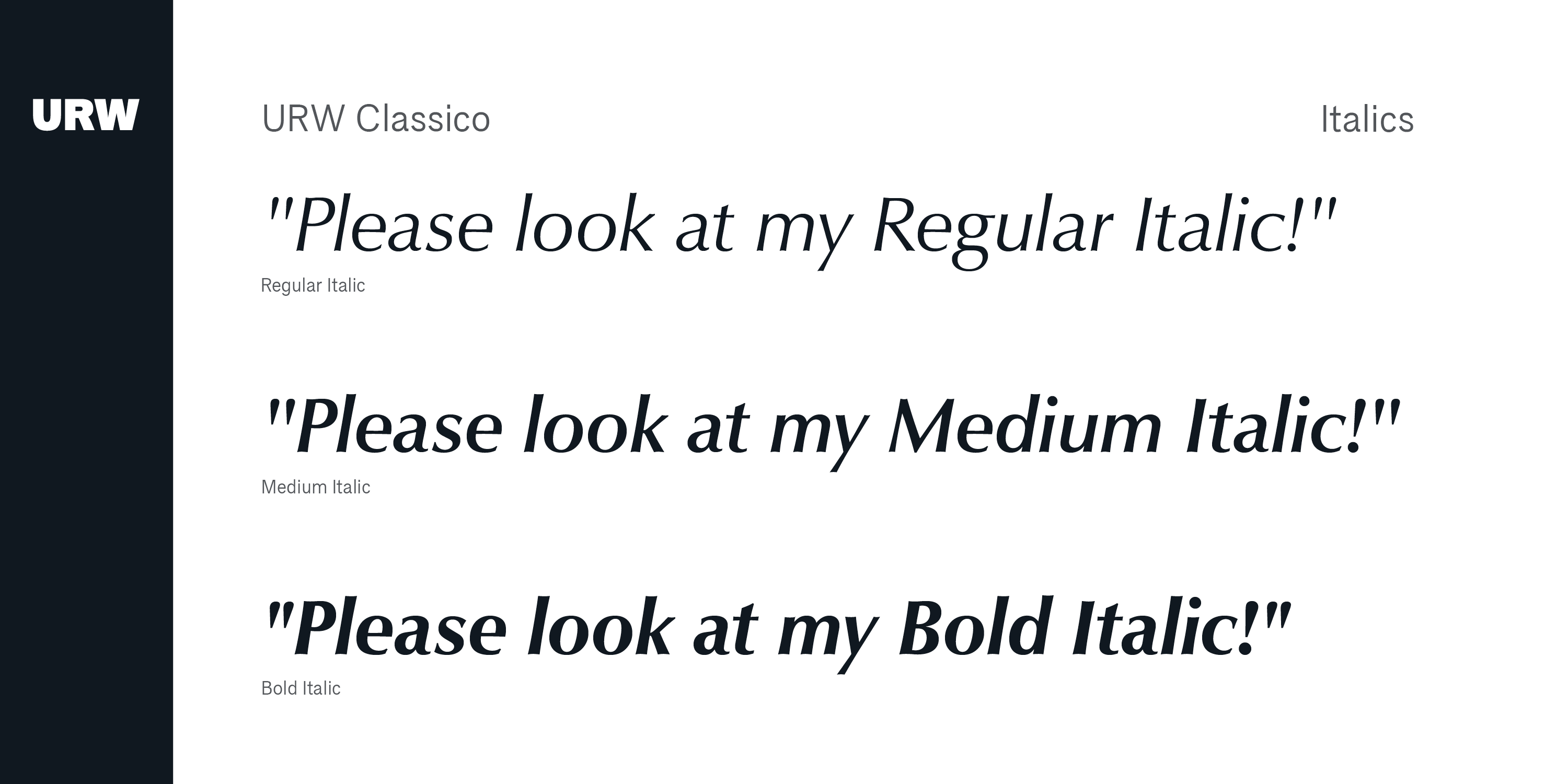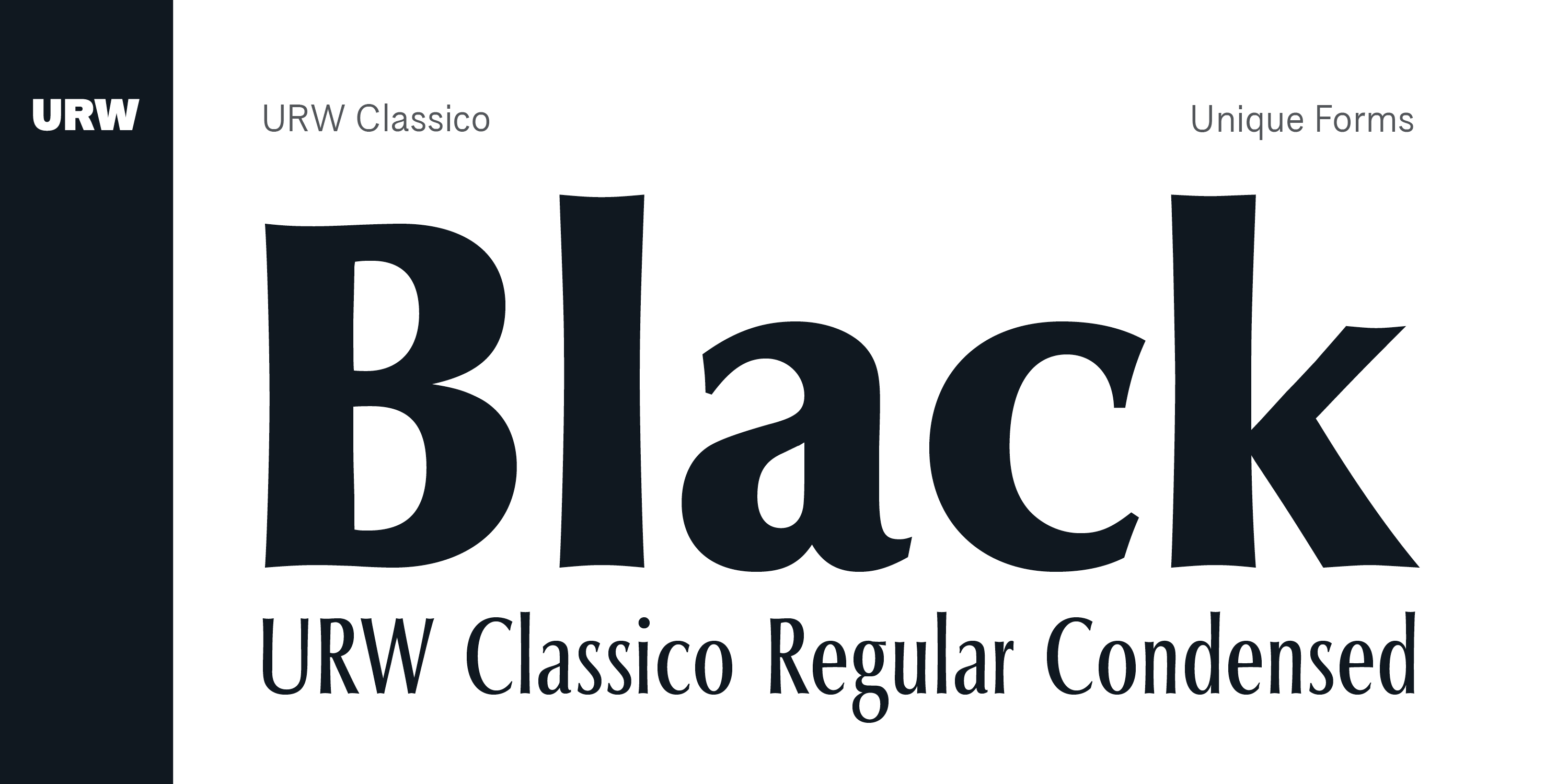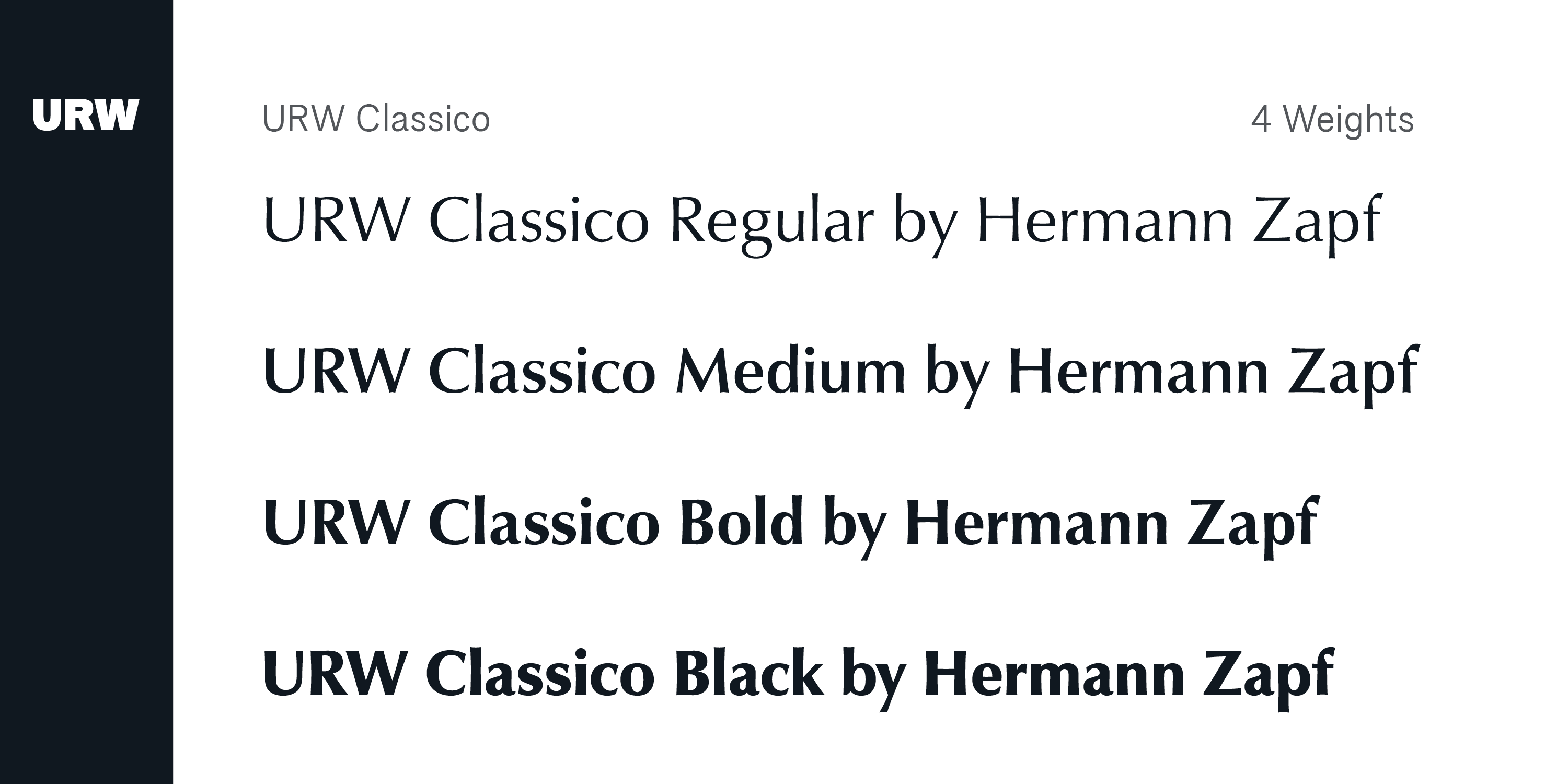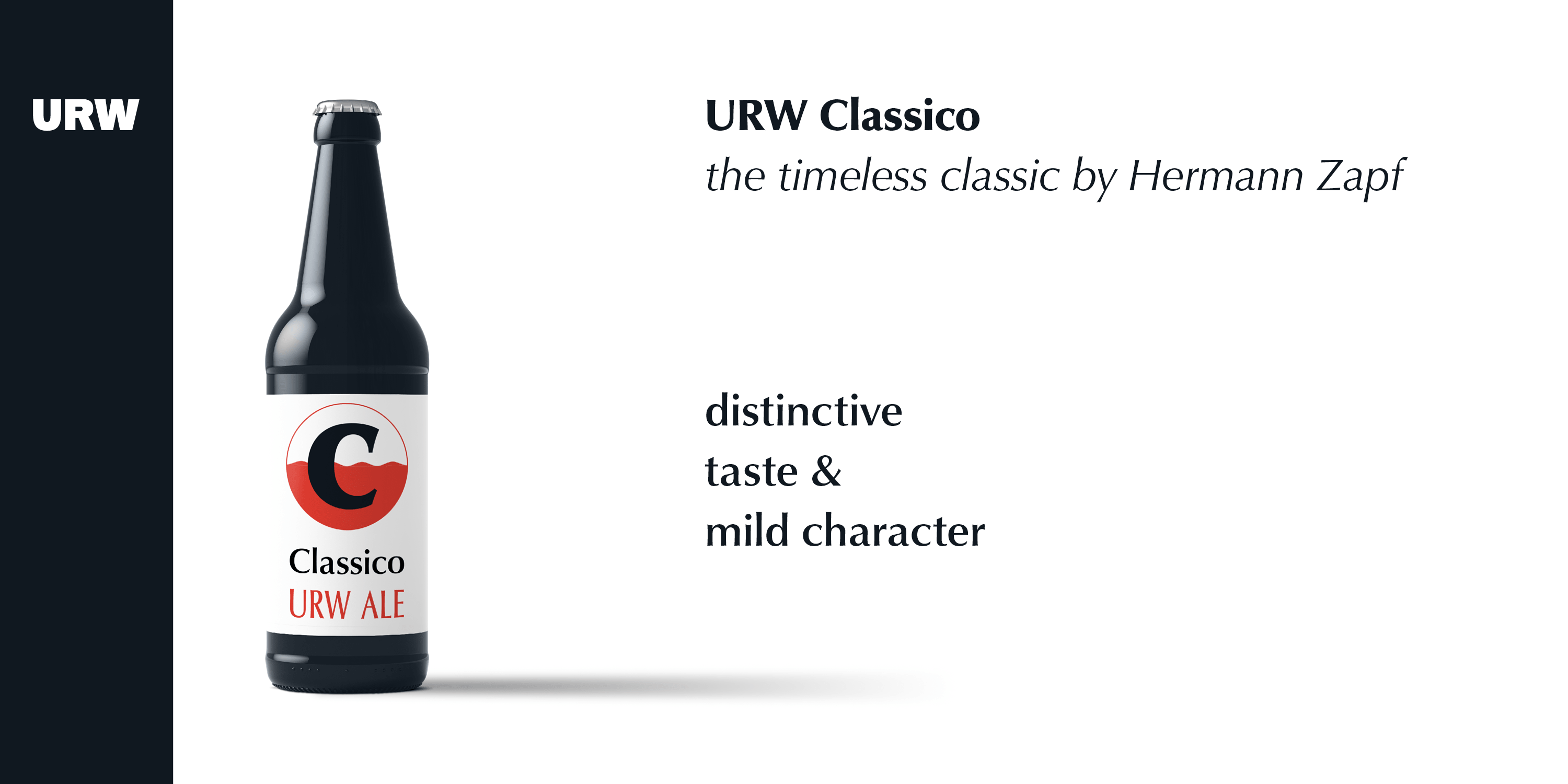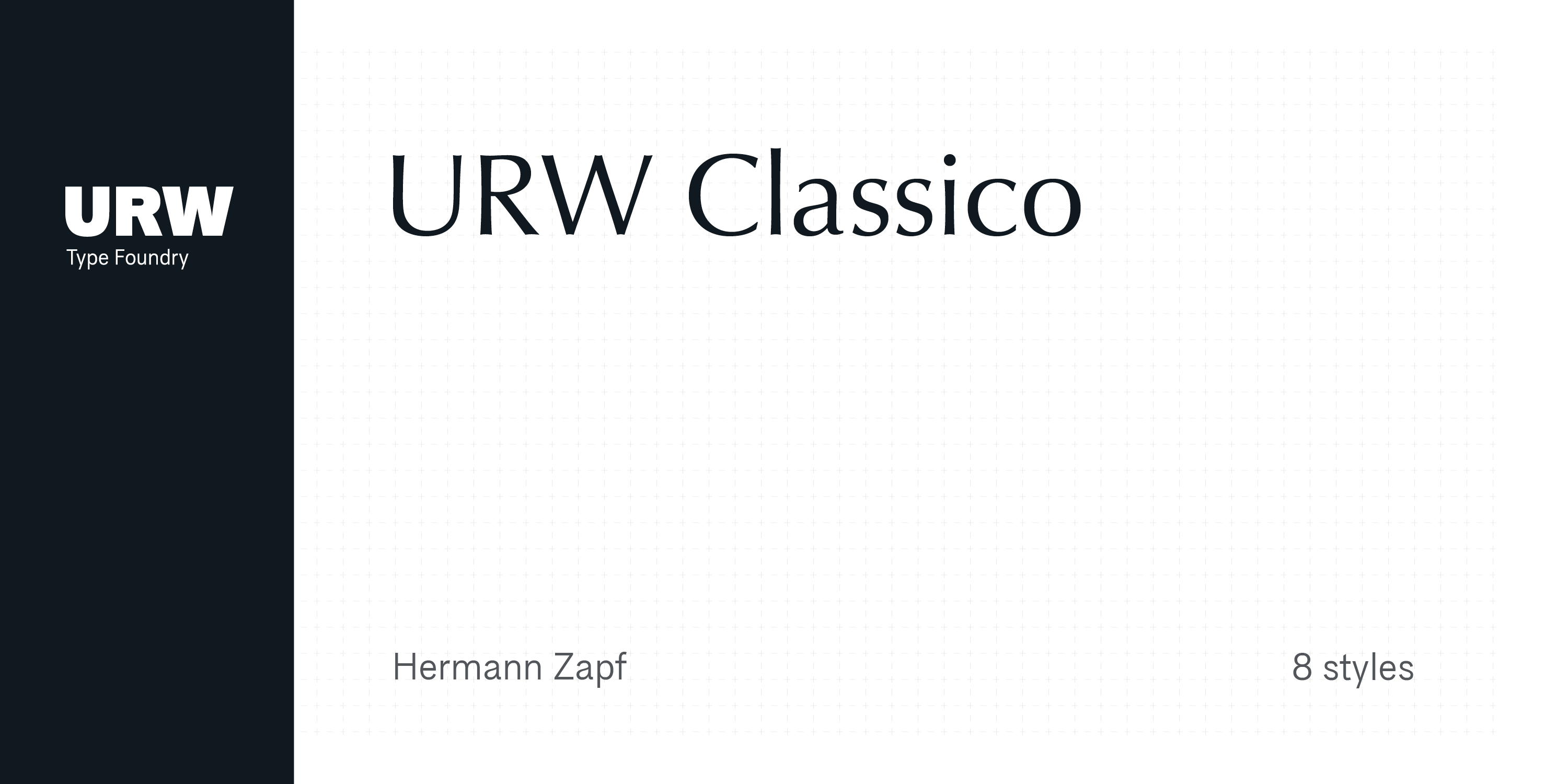
Classico
Font Family by URW++
Classico is a five-style serif family from URW++ with a refined, bookish feel and a distinctly modern edge. Its transitional structure, bracketed serifs, and calligraphic influence give it a classic foundation, while the clean drawing, narrow proportions, and high-contrast strokes keep the overall look crisp and contemporary.
With Regular, Italic, Medium, Bold, and Bold Italic styles included, it offers a flexible range for editorial design, formal branding, display typography, and polished text settings. The balance of elegance, legibility, and sturdy presence makes it a smart choice when you want type that feels traditional without looking dated.